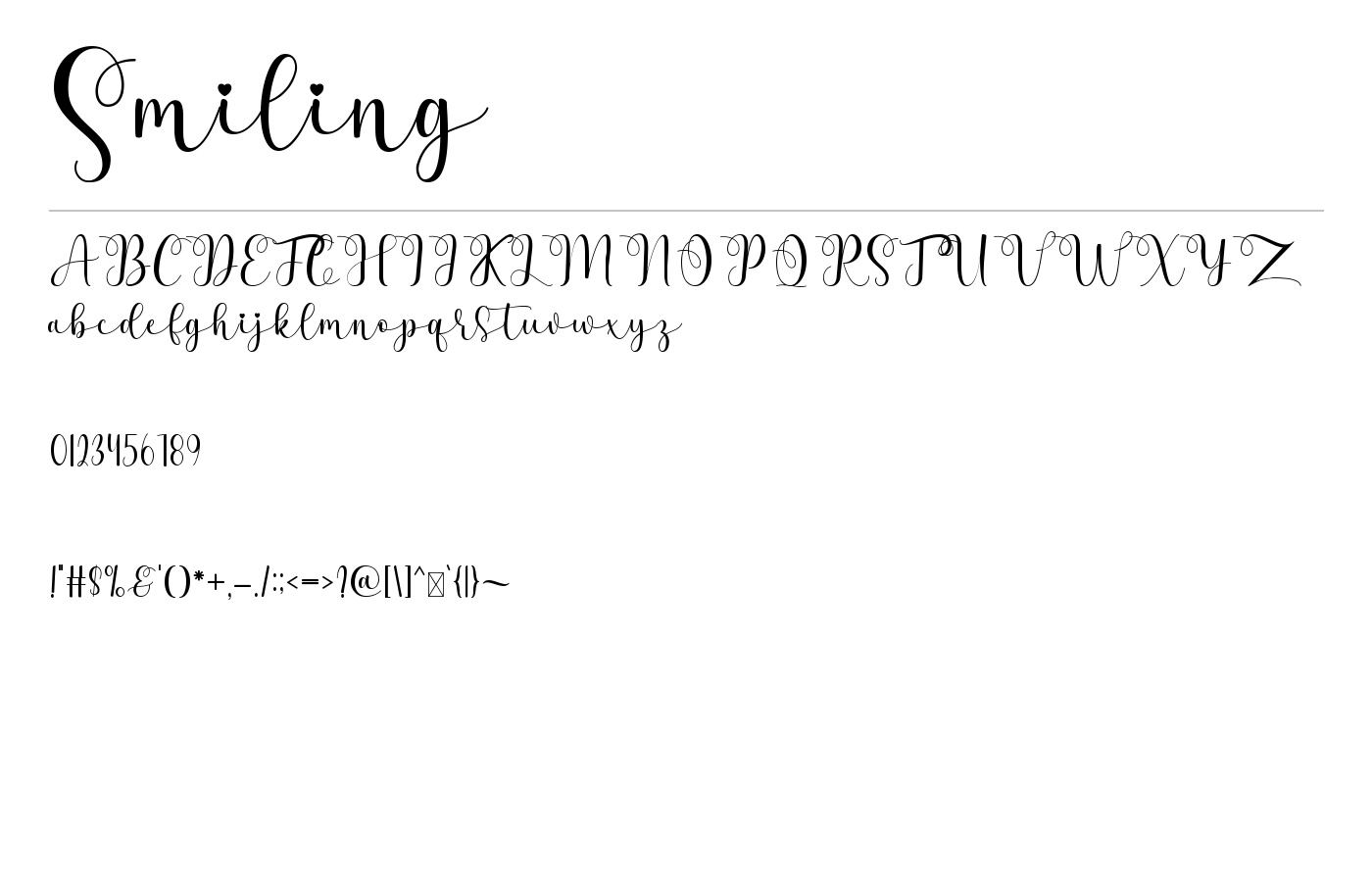
Smiling Font is an elegant, script-style typeface featuring delicate, flowing letterforms with charming swirls and heart-shaped dots that add a whimsical, romantic touch. Its thin strokes and decorative curls make it perfect for feminine branding, wedding invitations, and playful editorial designs where a graceful, hand-crafted feel is desired.
Smiling Font
About Smiling Font